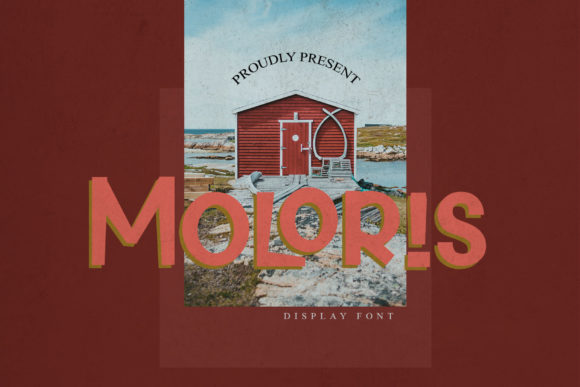
Moloris Font
Moloris is a cool and neat display font. It can easily be matched to an incredibly large set of projects that require a casual or trendy touch. This font is PUA encoded which means you can access all of the glyphs and swashes with ease!